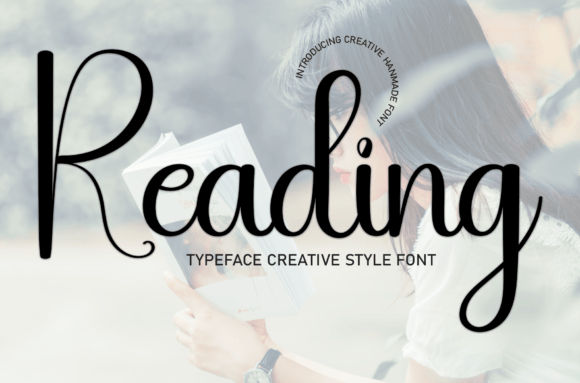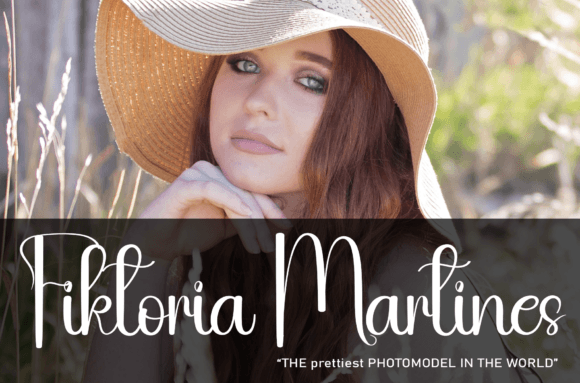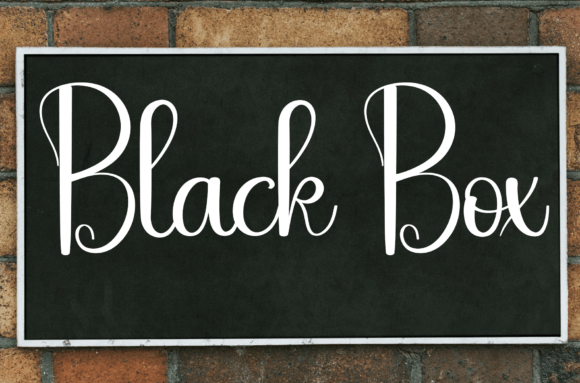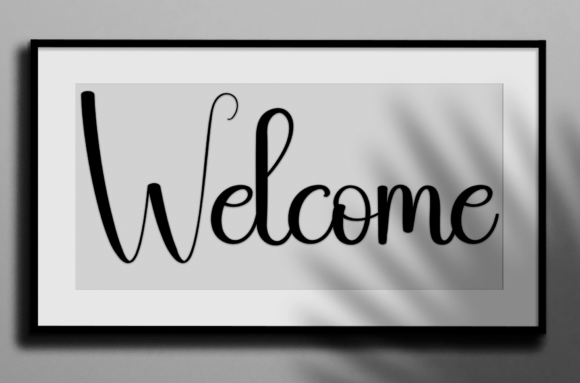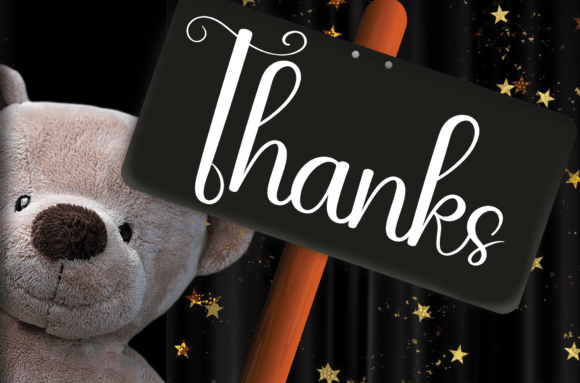
Reading
About Reading
Reading is a sweet handwritten font. Friendly and cute, this font is ideal for writing wedding invitations, cards, or any other design that might need a fun touch!